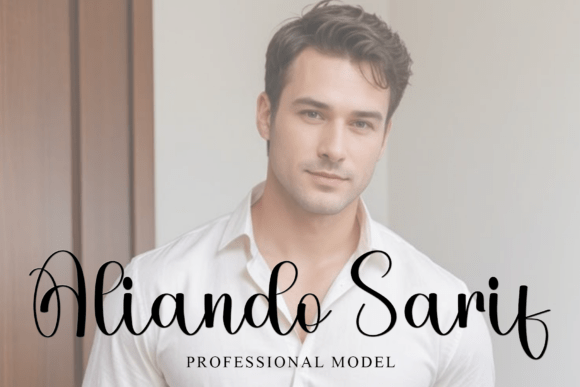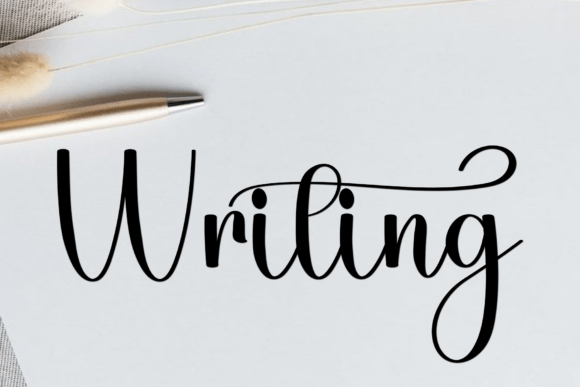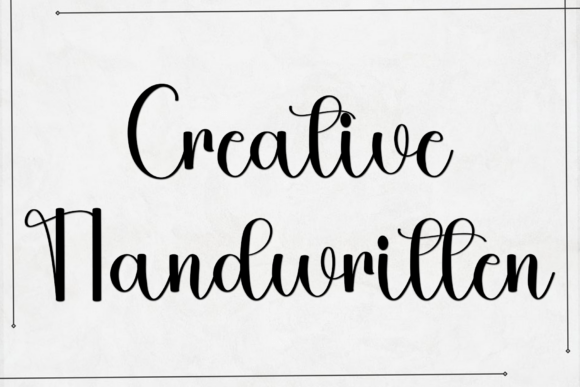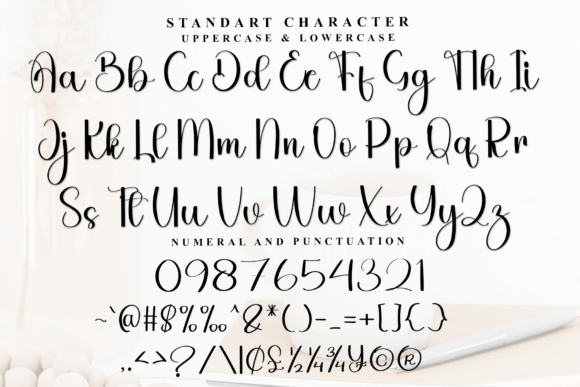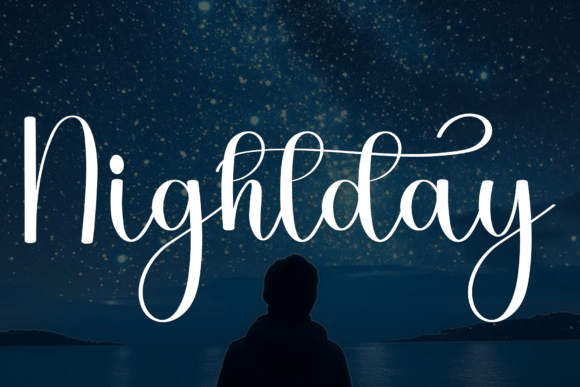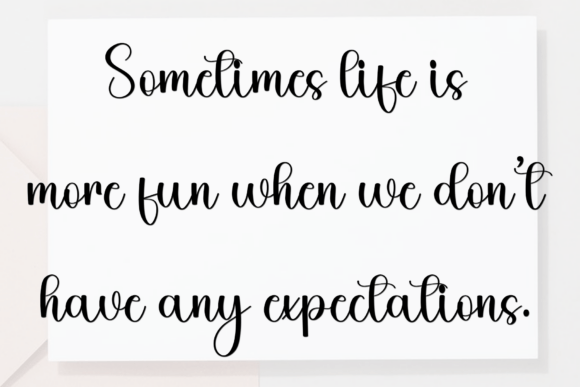
Discover the Charm of Bestiaries Font: Elevate Your Designs with a Unique Touch
In the world of typography, fonts play a crucial role in bringing creativity and life to designs. Among the numerous fonts available, Bestiaries stands out for its soft, unique touch and distinctive strokes. This beautiful font is designed to add a special character to your projects, making it a versatile choice for various applications. In this article, we will explore the features and benefits of Bestiaries font, and how it can enhance your designs across different artistic and creative fields.
What Makes Bestiaries Font Special?
Bestiaries font is crafted with a soft and unique touch that sets it apart from other fonts. Its distinctive strokes give it a special character, making it meaningful and versatile for future use. The font features a natural style that can add a personal touch to your designs, making them more appealing to a wide range of audiences. Whether you’re working on a design project, craft, or other creative work, Bestiaries font is an excellent choice.
Key Features of Bestiaries Font
- Unique and Soft Touch: Bestiaries font boasts a soft and unique touch that adds a personal touch to your designs.
- Distinctive Strokes: The font’s distinctive strokes give it a special character, making it stand out from other fonts.
- Versatile: Bestiaries font is versatile and can be used for various design projects, crafts, and other creative works.
- Natural Font Style: Bestiaries font features a natural style that can enhance your designs and make them more appealing.
Use Cases for Bestiaries Font
Bestiaries font is perfect for a wide range of design projects, including:
- Design Projects: Use Bestiaries font to add a unique touch to your design projects, such as brochures, posters, and flyers.
- Crafts: The font is ideal for craft projects, such as handmade cards, gift tags, and scrapbooking.
- Creative Works: Bestiaries font can be used for various creative works, such as illustrations, paintings, and digital art.
Benefits of Using Bestiaries Font
Using Bestiaries font can bring several benefits to your designs, including:
- Enhanced Visual Appeal: The font’s unique and soft touch can enhance the visual appeal of your designs.
- Increased Versatility: Bestiaries font is versatile and can be used for various design projects and applications.
- Improved Readability: The font’s natural style and distinctive strokes can improve readability and make your designs more engaging.
In conclusion, Bestiaries font is a beautiful and eye-catching font that can add a unique touch to your designs. Its soft and unique touch, distinctive strokes, and natural style make it a versatile choice for various design projects, crafts, and creative works. With its compatibility with various applications and platforms, Bestiaries font is an excellent choice for designers and crafters looking to elevate their designs and appeal to a wide range of audiences.